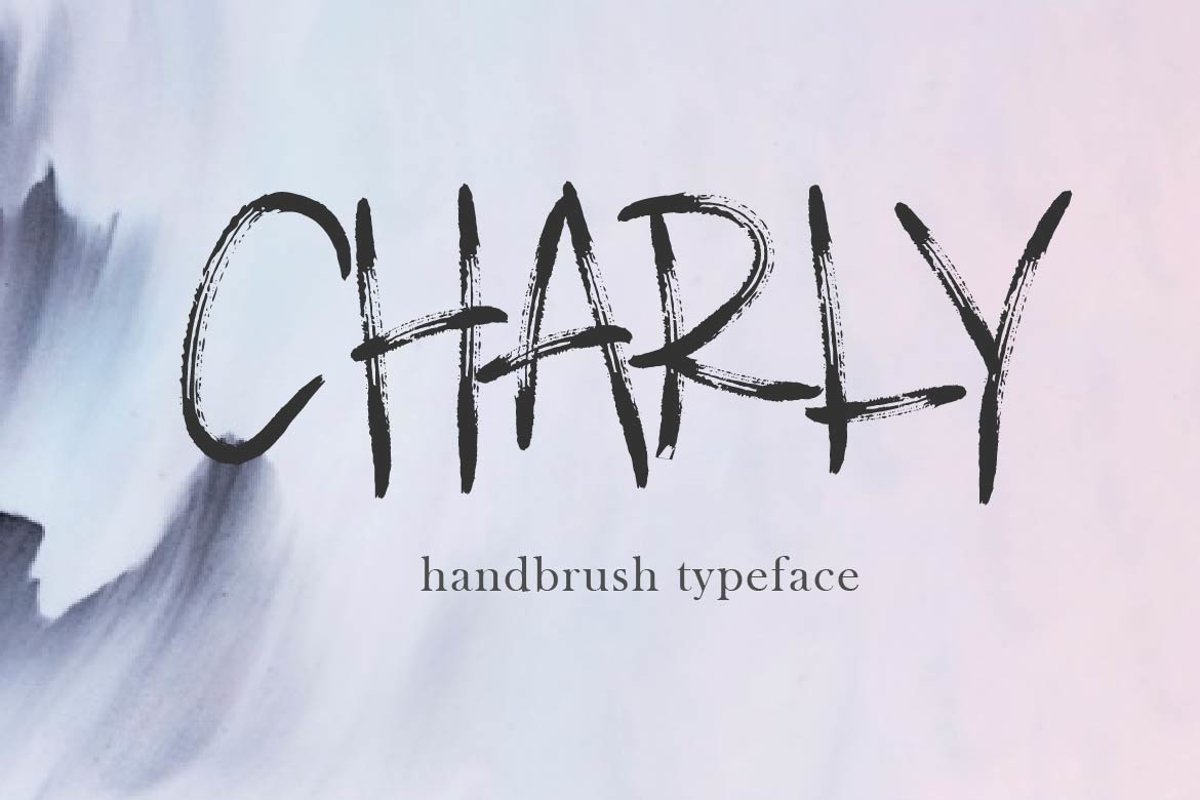
CHARLY
INTRODUCING
CHARLY is a supercharged font, with natural brush, quick strokes and sharp details.
CHARLY It contains ALL CAPS and also support multilingual.
Perfect for challenging jobs, titles, logos, apparel, t-shirts, hoodies, quotes, product packaging, or anything that needs a typographic turbo-boost and a typographic unique style.